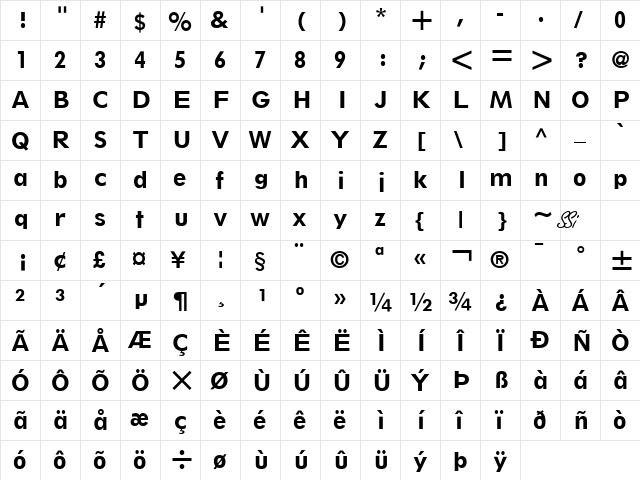
Thinx SSi Bold
Design Context for Thinx SSi Typeface
Thinx SSi is a composed and adaptable typeface that performs quietly and consistently across a wide range of design contexts. Its bold stroke weight gives it real presence on the page.